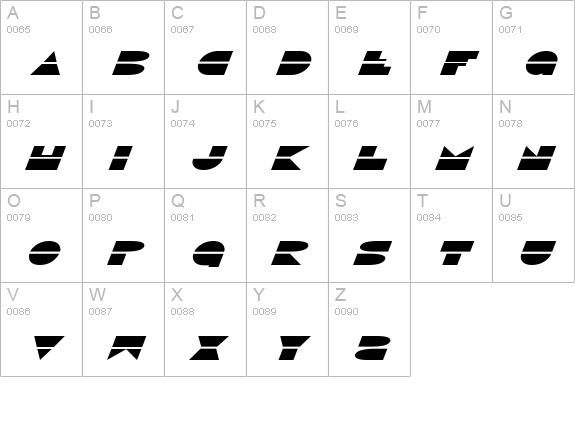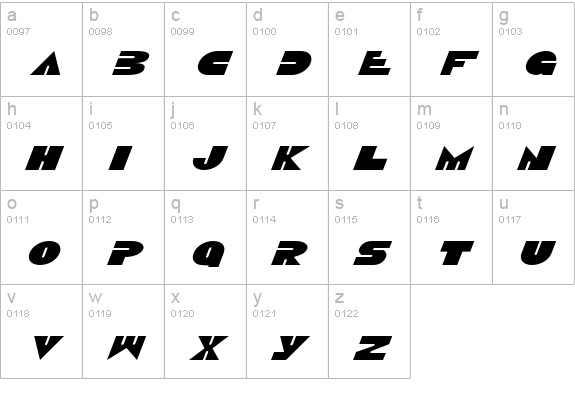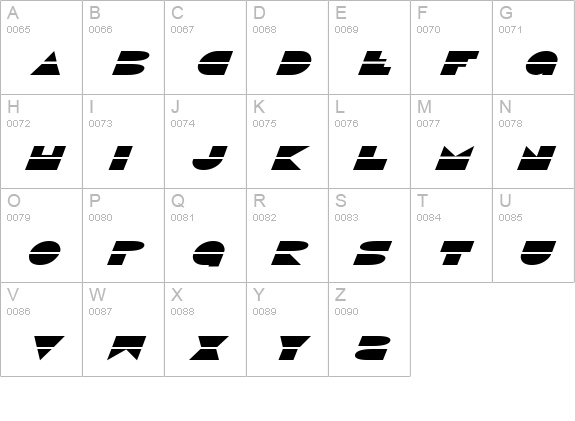
Introducing Disco Duck ExpItalic font, a groovy and retro-inspired typeface that will make your designs come to life with a touch of disco fever! This unique font features sleek, elongated curves and bold italic styling, perfect for adding a fun and dynamic flair to any project. Best of all, Disco Duck ExpItalic font is available for free download at FontsMarket.com, so you can easily add this playful font to your collection without breaking the bank. Whether you're working on a poster, flyer, logo, or any other design project, Disco Duck ExpItalic font will help you stand out and make a lasting impression. Get your groove on and download this fabulous font today!